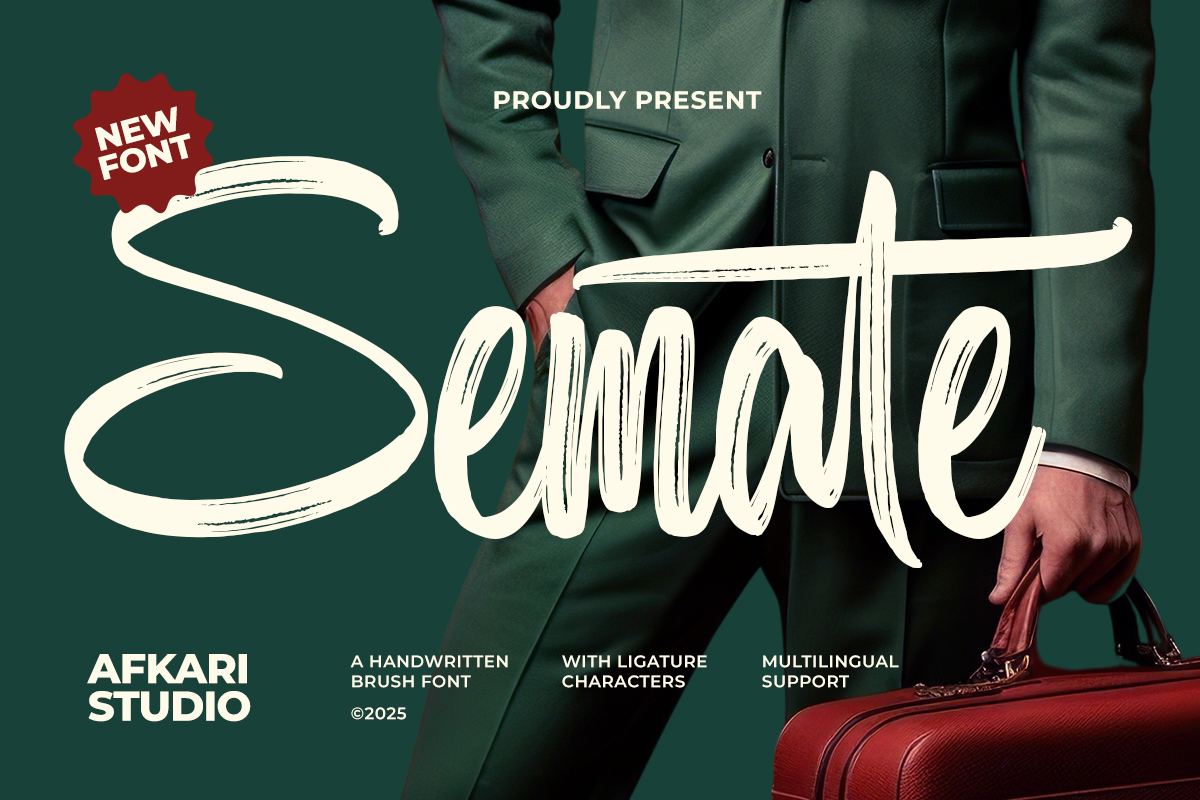
Semate – Handwritten Brush Font Font
Designed by Afkari Studio
About Semate – Handwritten Brush Font
Semate – Handwritten Brush Font is full of raw energy, expressive strokes, and an authentic handmade feel. Designed to mimic real brush pen lettering, Semate delivers natural flow, bold movement, and a casual artistic vibe that makes your message feel personal and powerful.